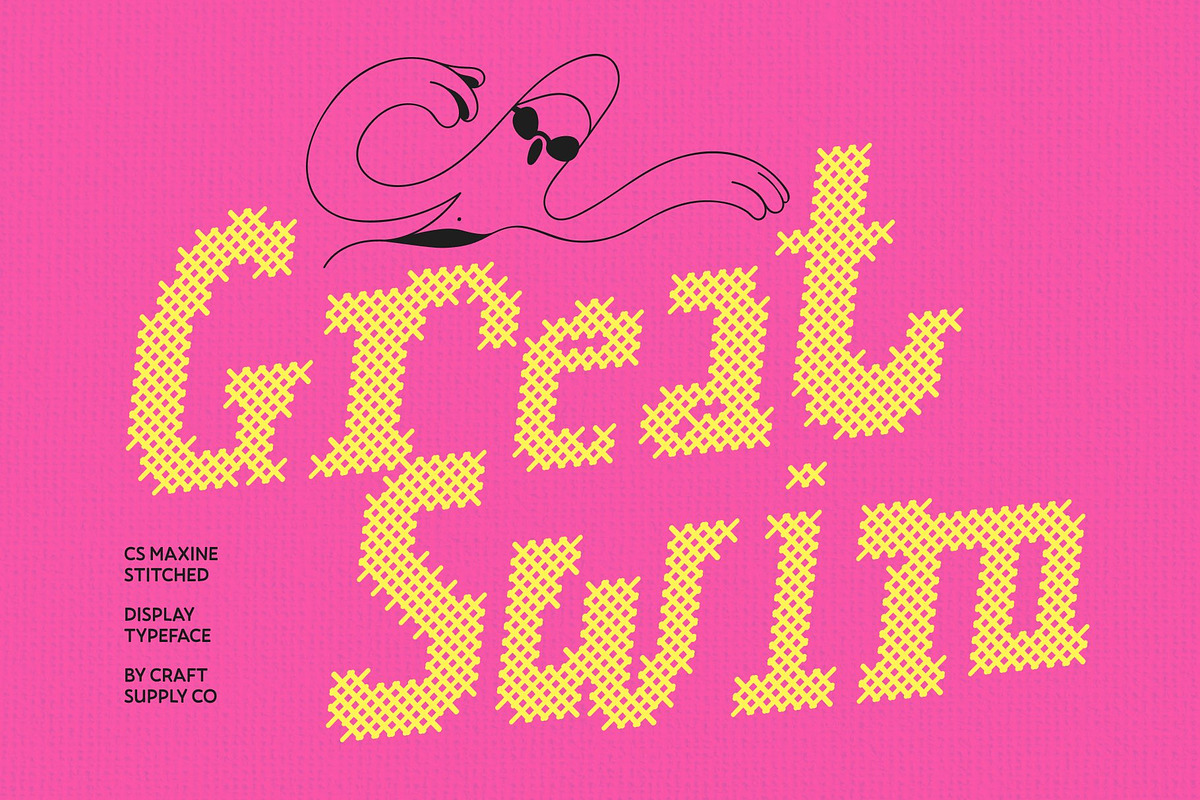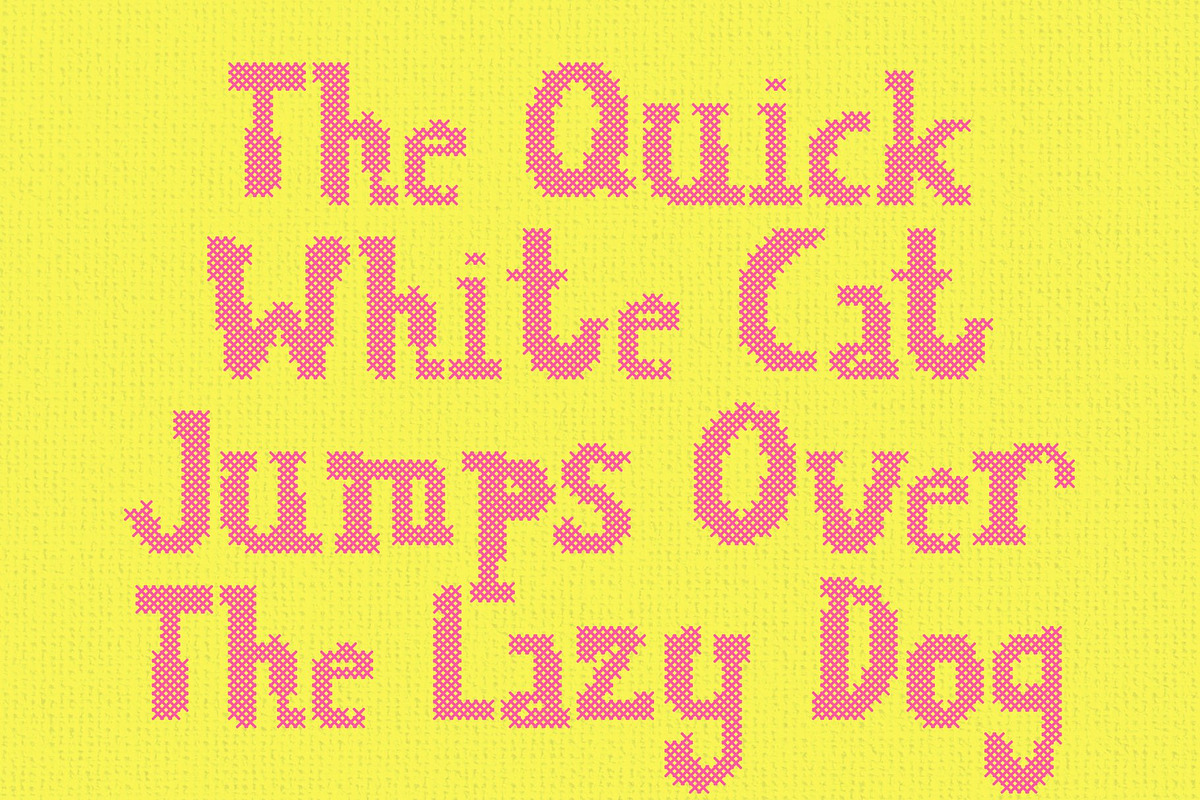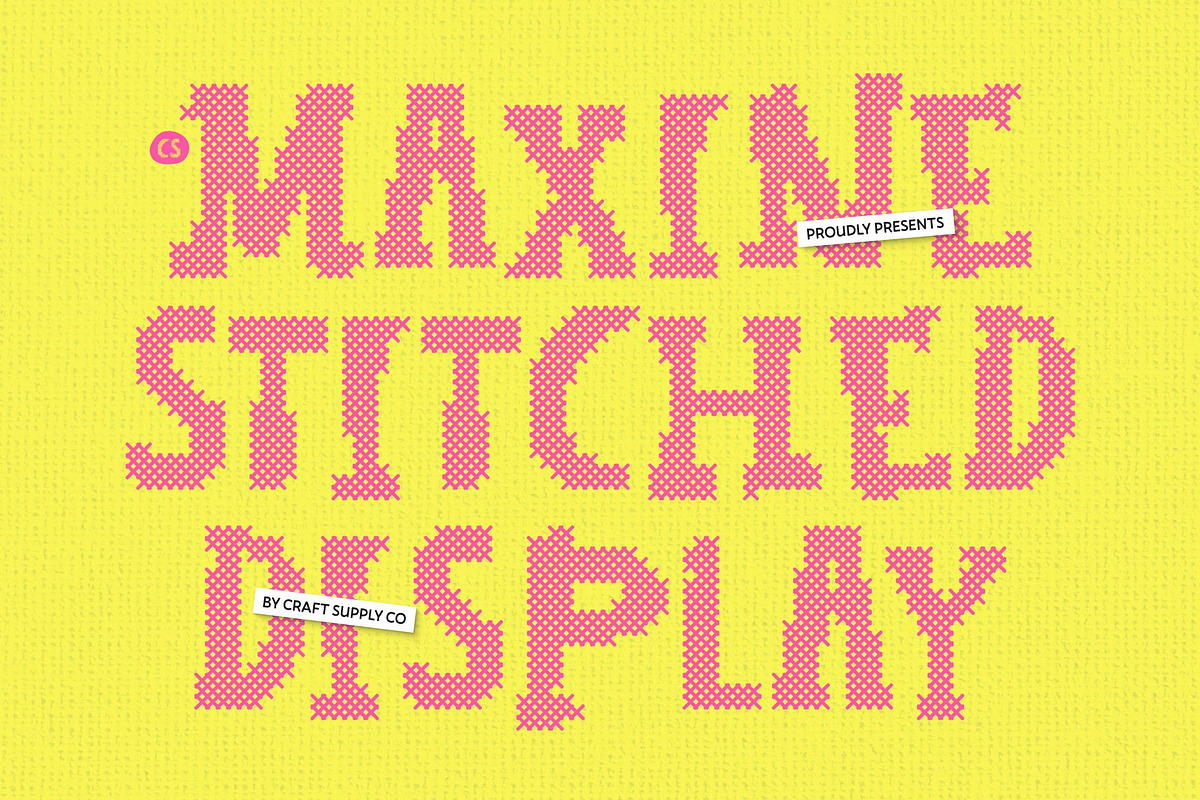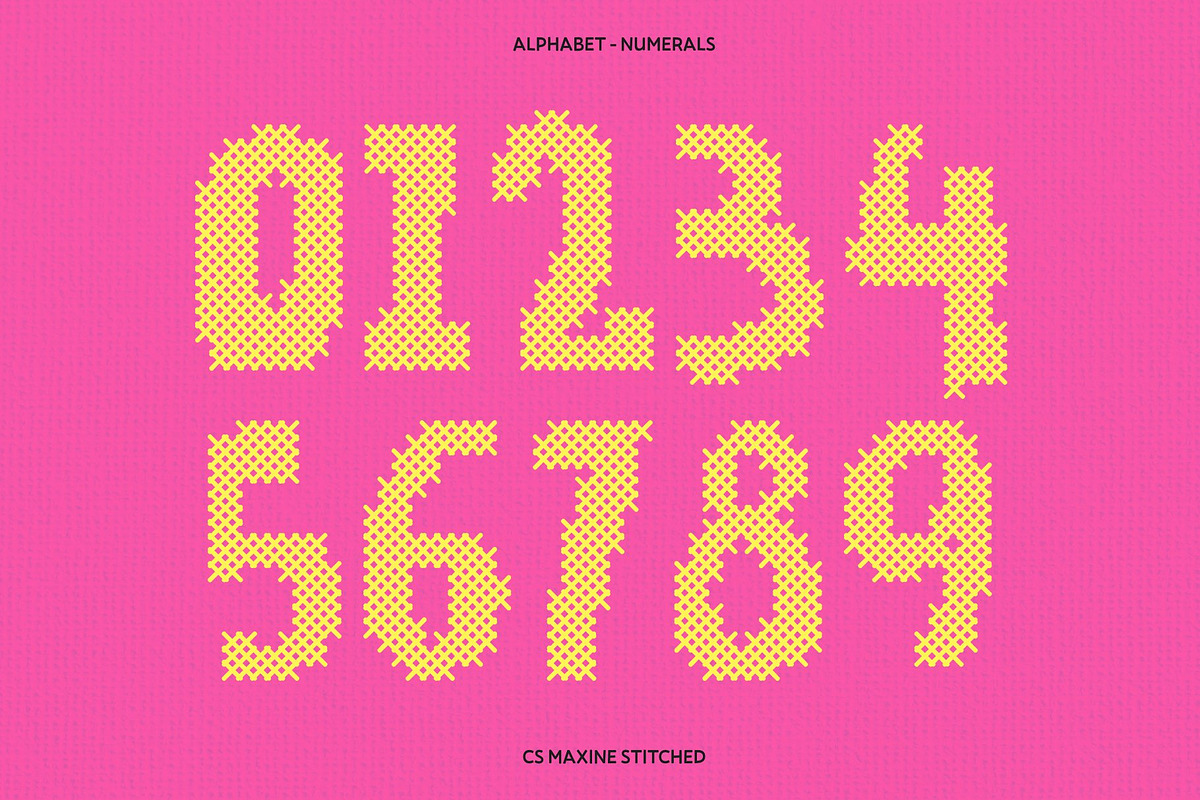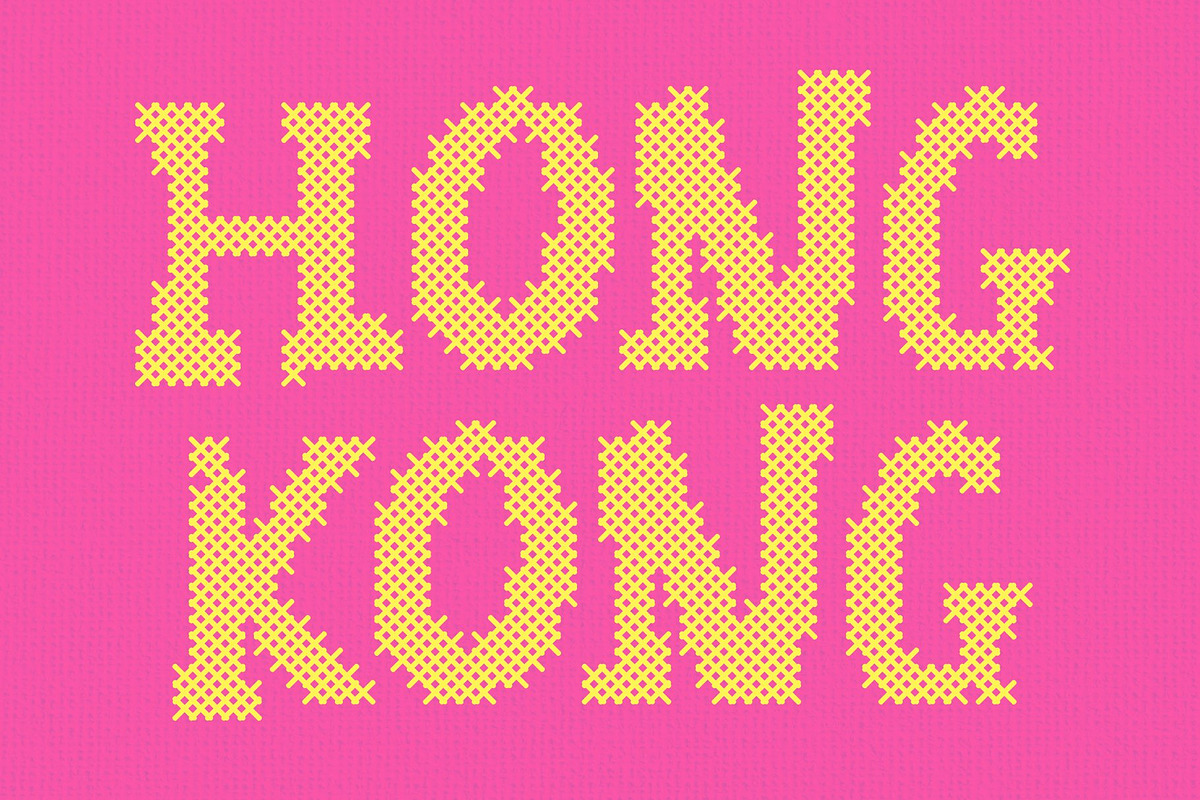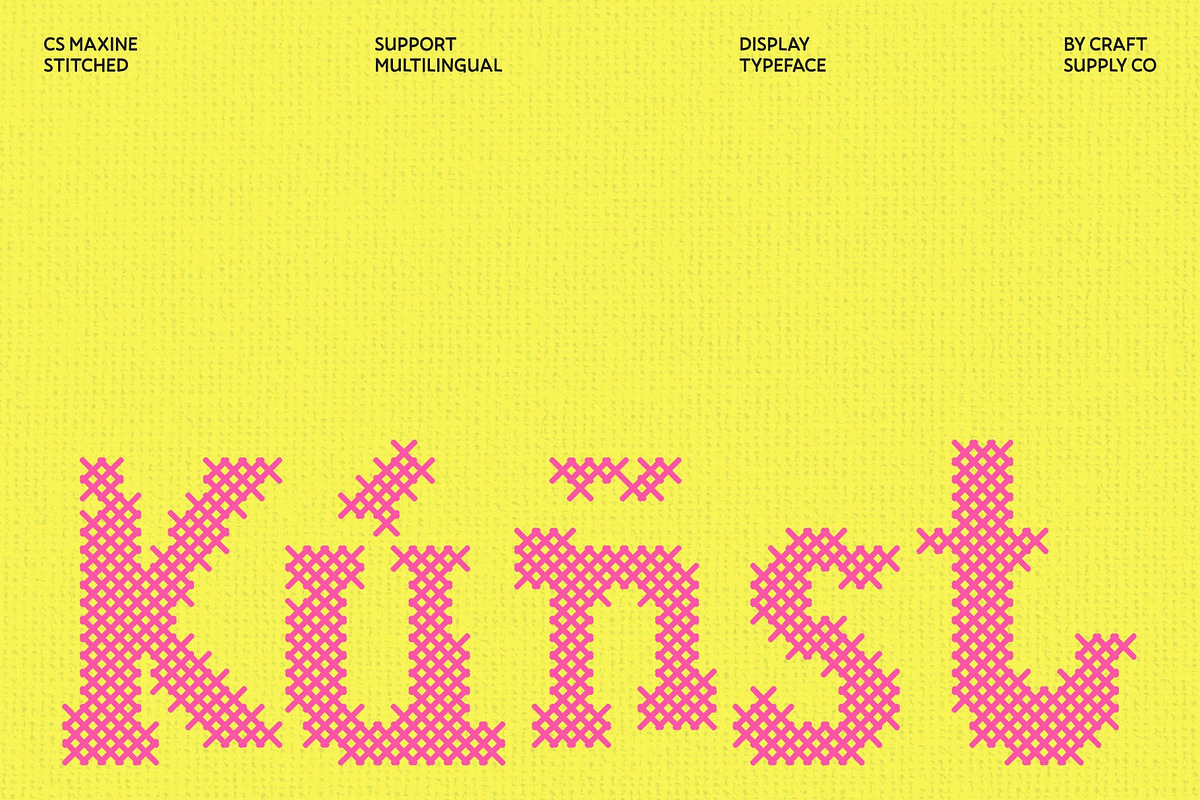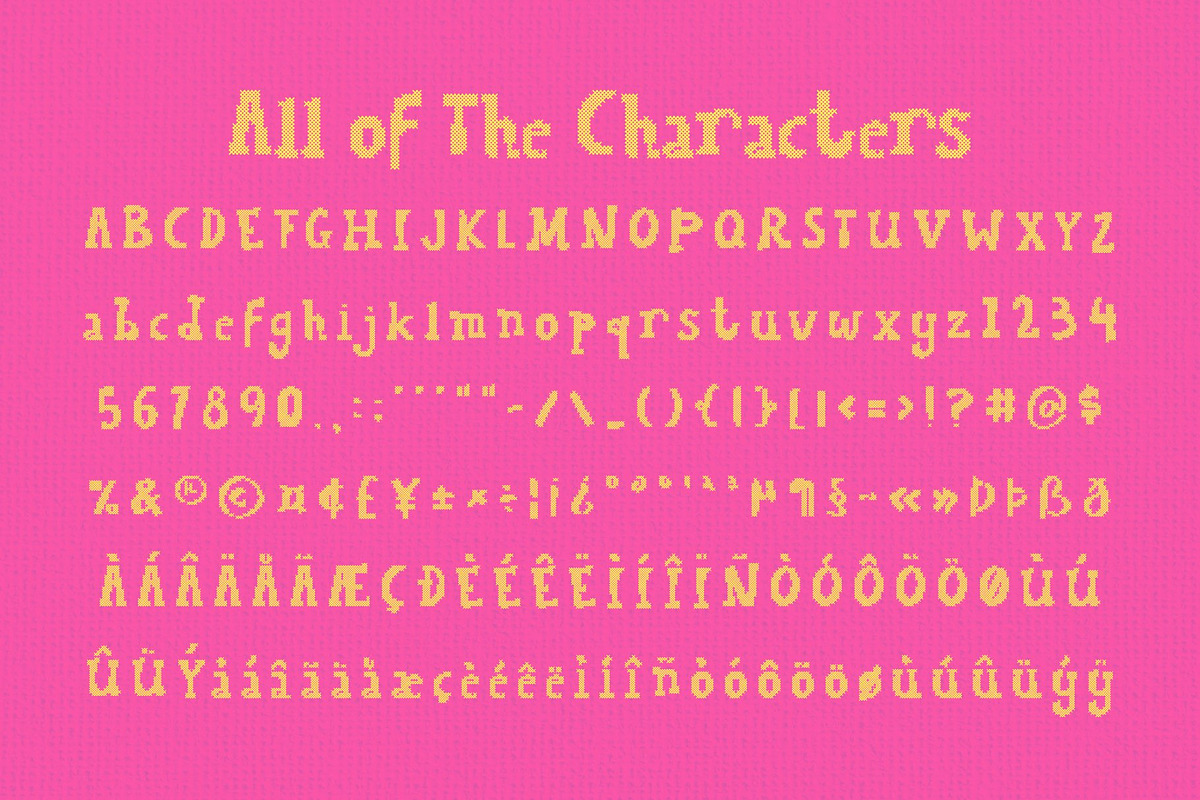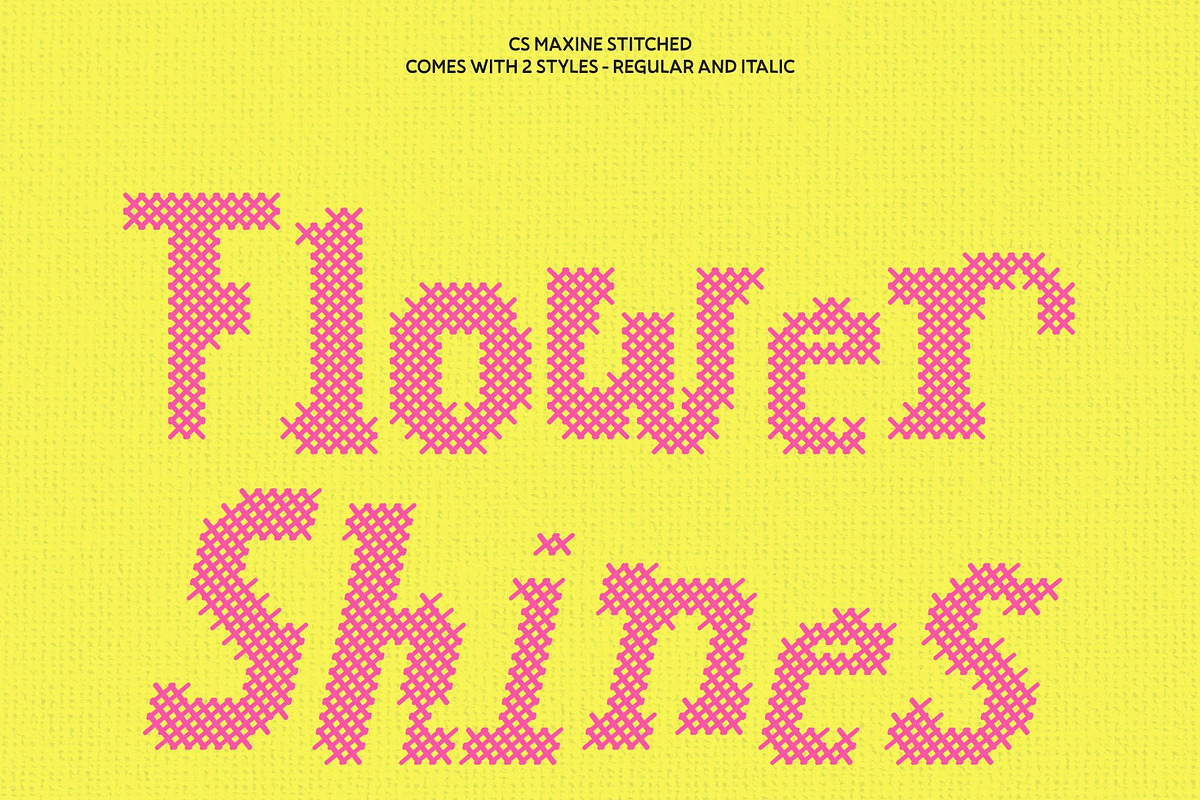
CS Maxine Stitched
Step into a world of imagination and creativity with CS Maxine Stitched, a playful typeface that combines the solid structure of a slab serif with the warmth of handwritten lettering. Its naturally drawn texture brings authenticity and friendliness to every word, creating a lively and expressive visual voice that feels both contemporary and deeply personable.
What truly defines this typeface is its unique stitched style, meticulously designed to mimic real thread sewn or embroidered directly onto fabric. Every single character features a distinctive cross-shaped pattern that delivers a classic, nostalgic, relaxed, and warm impression. This special detailing introduces an embossed, structured texture that adds tangible depth and visual interest to your layouts.
Let your creative projects tell their own compelling story by using this font for bespoke children book covers, whimsical product packaging, heartfelt greeting cards, and cozy editorial layouts. The handmade aesthetic enhances any visual identity that requires a touch of fantasy spirit, ensuring your typography stands out with memorable character and genuine charm.
Bring a tactile quality to your branding and design work with a typeface that bridges digital creation and traditional textile craft. CS Maxine Stitched wraps your messaging in a comforting, beautifully crafted aesthetic that connects deeply with audiences looking for genuine handmade authenticity in their everyday visual experiences.
CS Maxine Stitched Regular
CS Maxine Stitched Italic